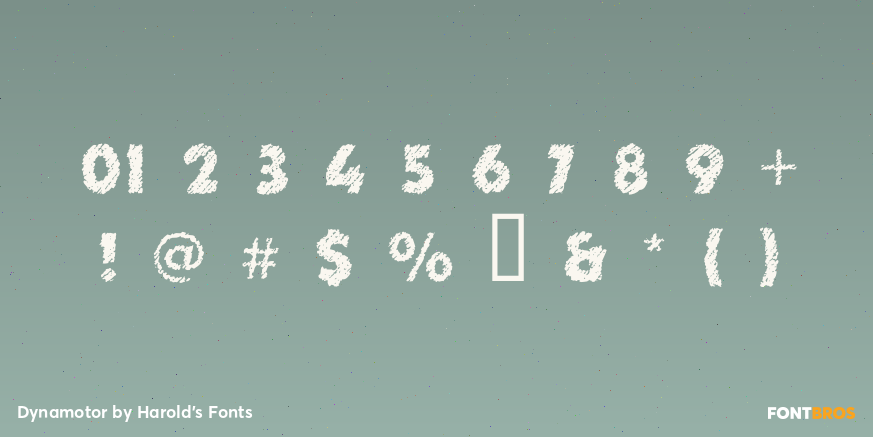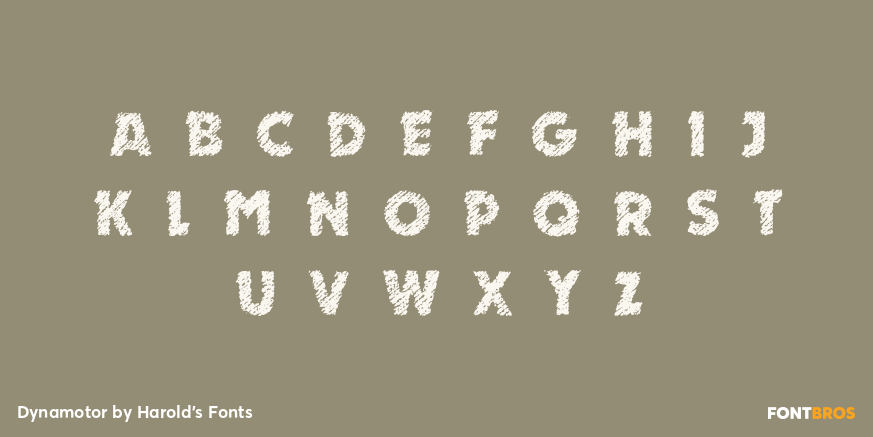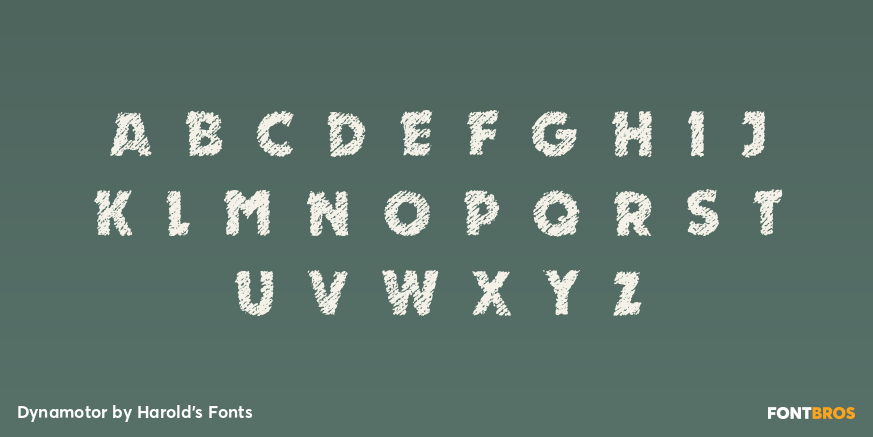
Dynamotor
Font Family by Harold's Fonts
DYNAMOTOR is my hand-drawn take-off of the classic font Dynamo. Dynamotor has the texture of diagonal crayon strokes which complements the bold, active letterforms. Looks great reversed for a chalk or scratchboard look.
Dynamo was designed by K. Sommer and first released in 1930. Its distinctive “fins” give it a touch of machine-age deco. Dynamo is available from many sources online; Dynamotor is NOT a Dynamo font.
Dynamotor was inspired by a book cover design.